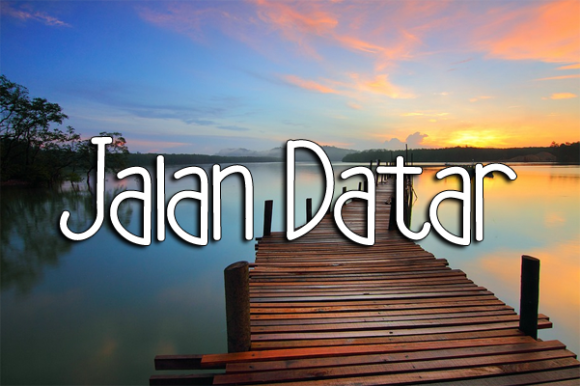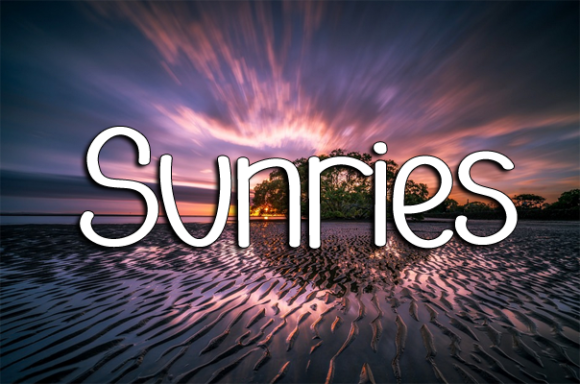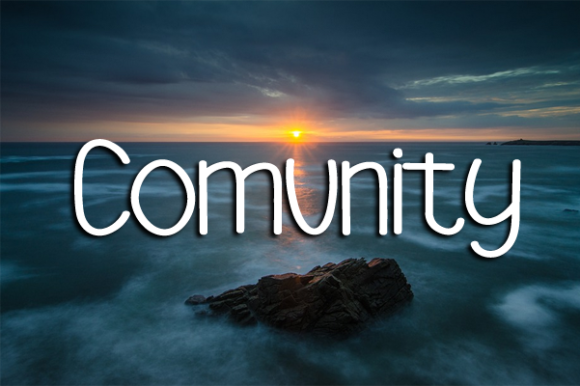
Remini Font
About Remini Font
Remini is a sweet and friendly handwritten font. Its natural and unique style makes it incredibly fitting to a large pool of designs. The only limit is your imagination!